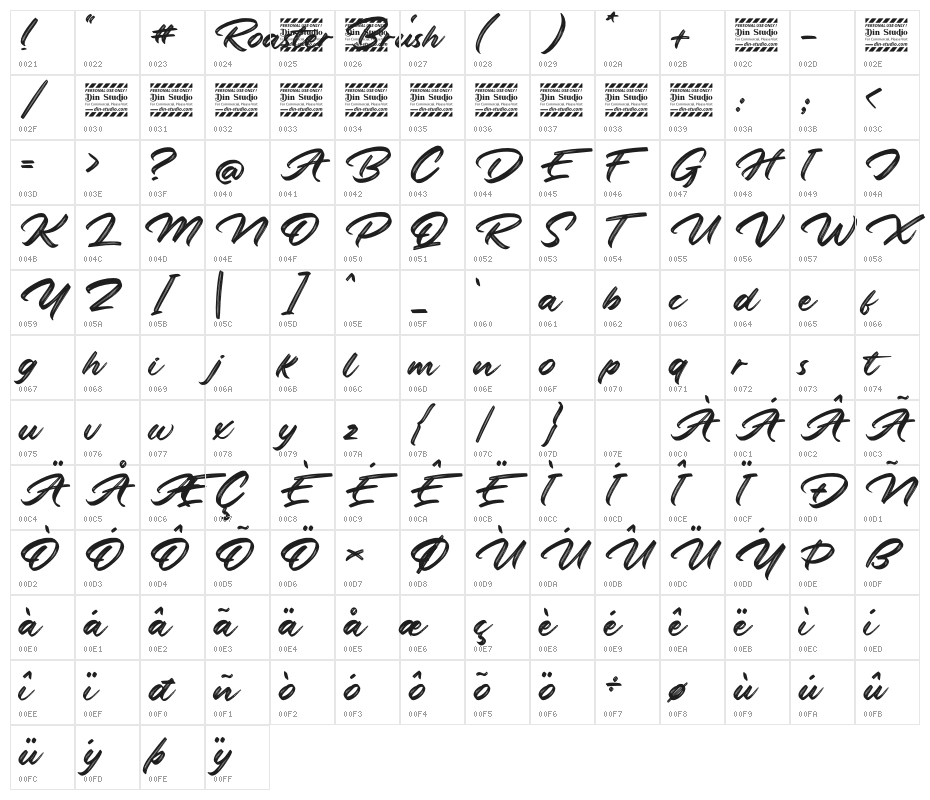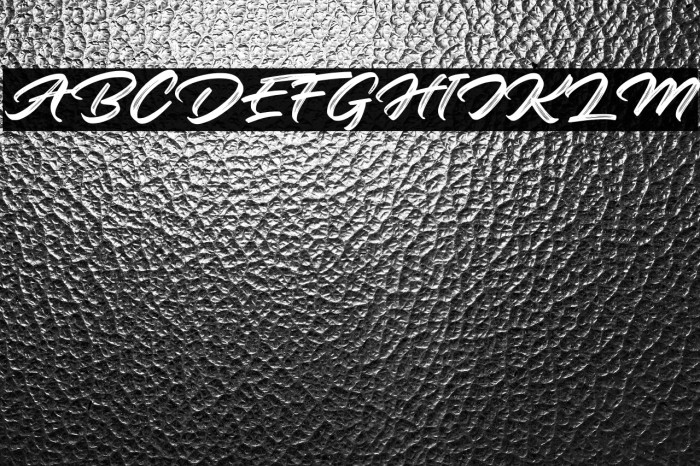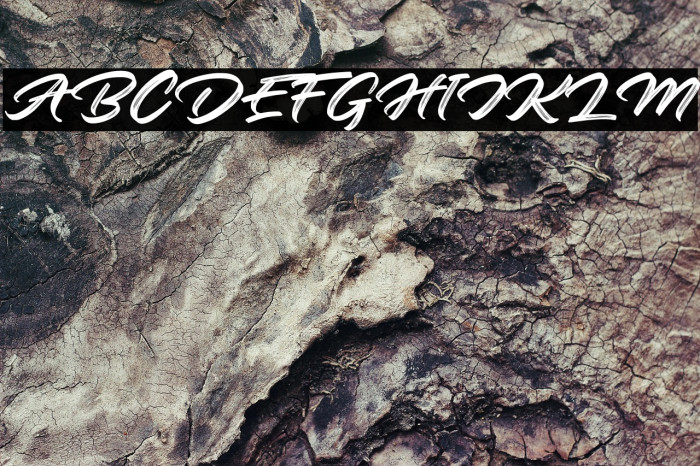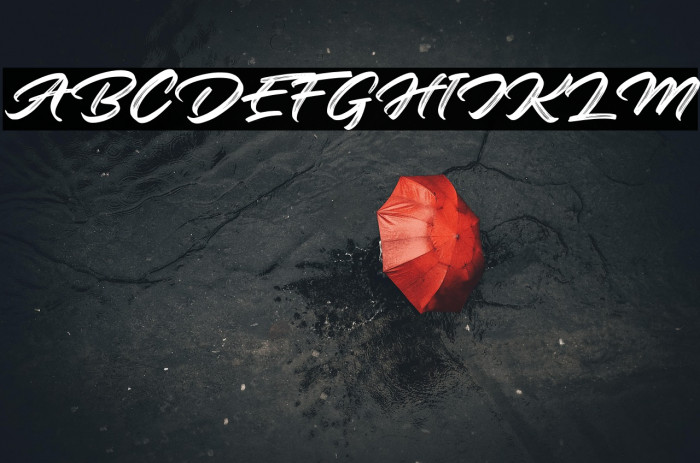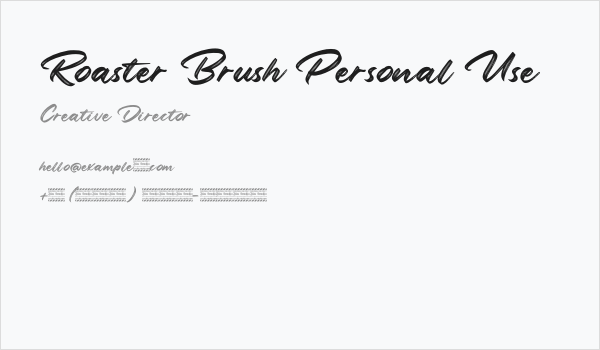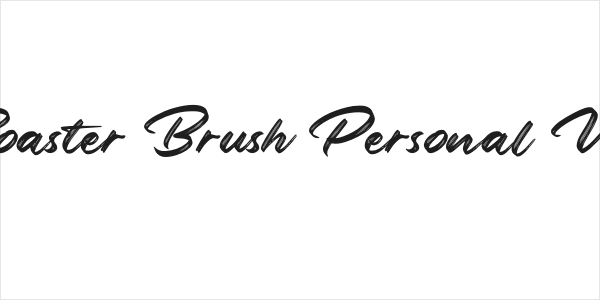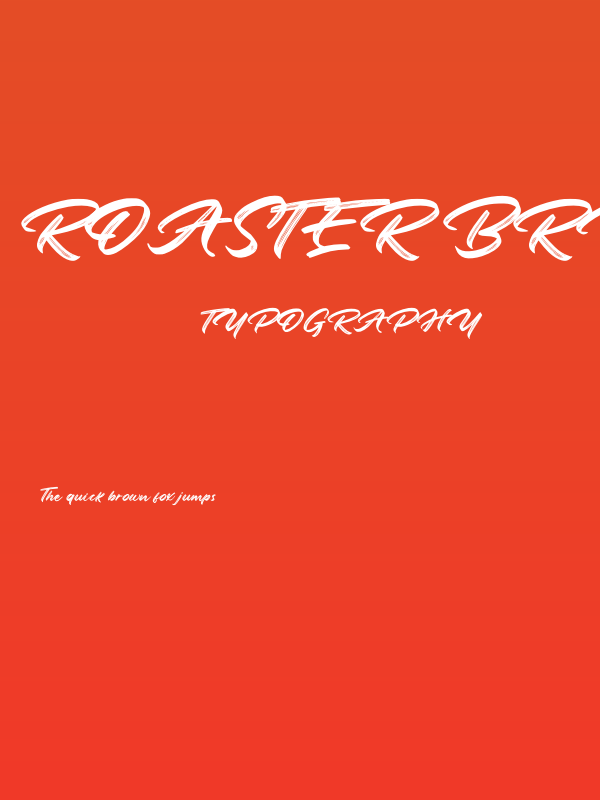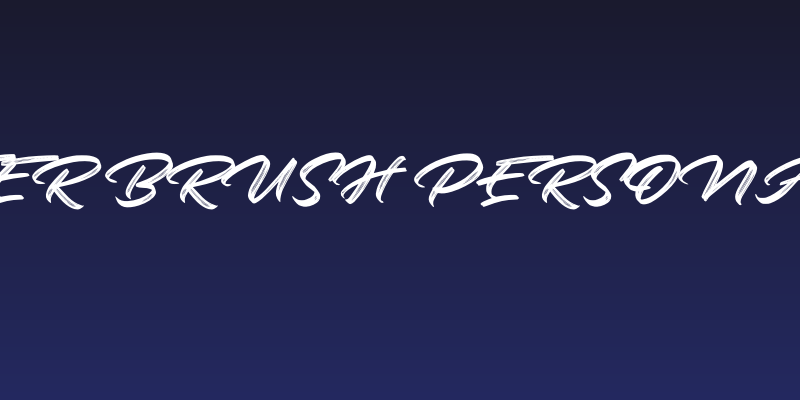
Roaster Brush Personal Use Font
Roaster Brush Personal Use Description
This font features a dynamic and energetic brush script style, characterized by its fluid, sweeping strokes and a hand-drawn appearance. The uppercase letters are bold and expressive, with a slight slant that adds a sense of motion and flair. The lowercase letters maintain the same lively quality, with smooth connections between characters that enhance readability. The numbers and special characters are crafted with the same attention to detail, ensuring consistency across all glyphs. This font's playful yet sophisticated style makes it ideal for projects that require a personal touch.
| Proposed Projects | Ideal for branding, packaging, social media graphics, and invitations. |